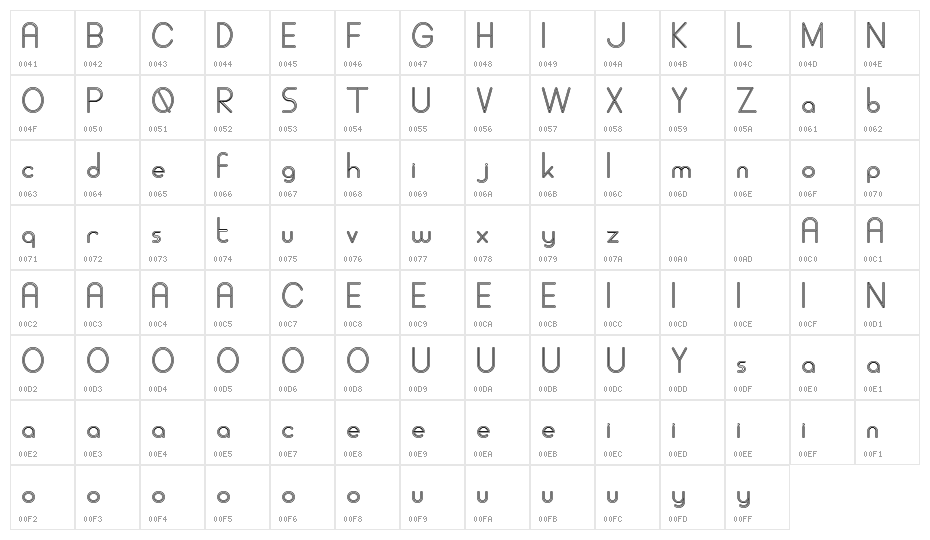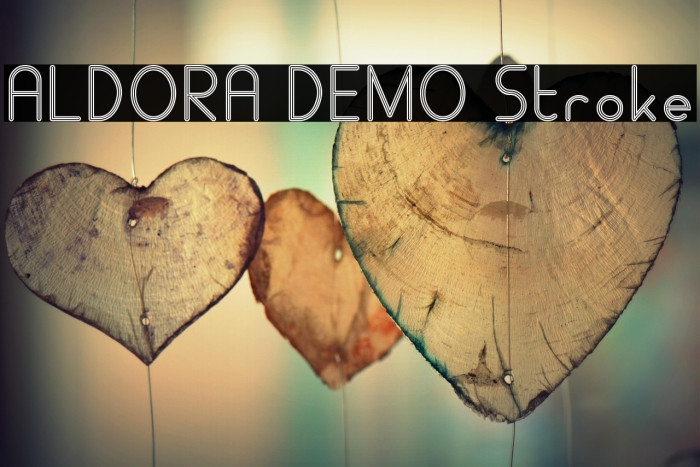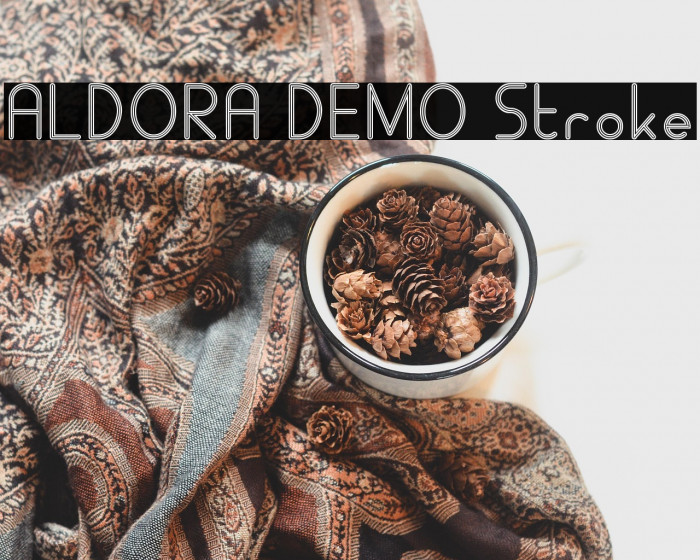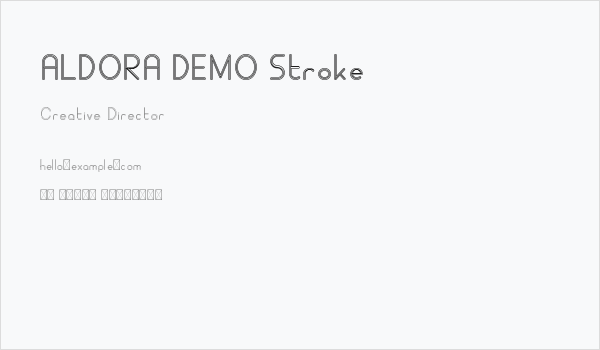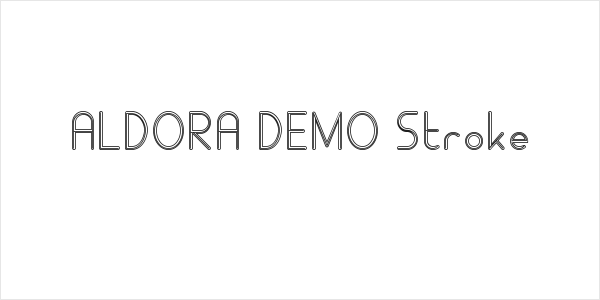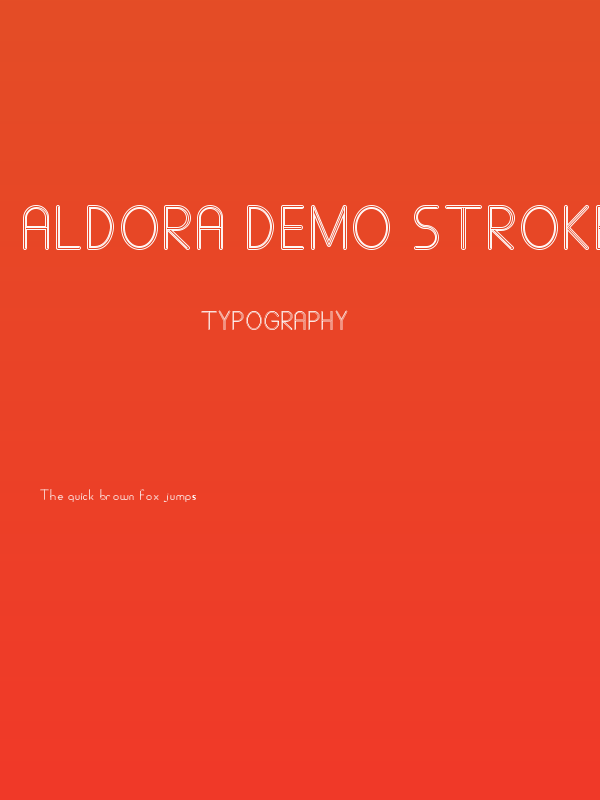
ALDORA DEMO Stroke Font
ALDORA DEMO Stroke Description
This font features a unique double-line stroke design, creating a hollow effect that adds depth and dimension to each character. The uppercase and lowercase letters maintain a consistent geometric structure, with rounded edges that soften the overall appearance. The font includes both uppercase and lowercase alphabets, numerals, and a selection of special characters. Its clean lines and modern aesthetic make it suitable for a variety of design projects. The spacing between characters is uniform, ensuring readability while maintaining its distinctive style.
Proposed ProjectsIdeal for branding, posters, headlines, and digital media where a modern and stylish look is desired.